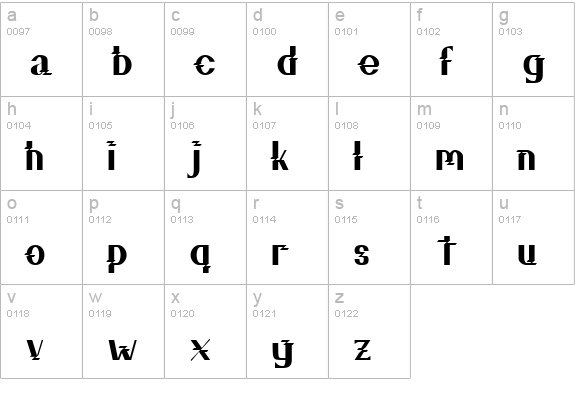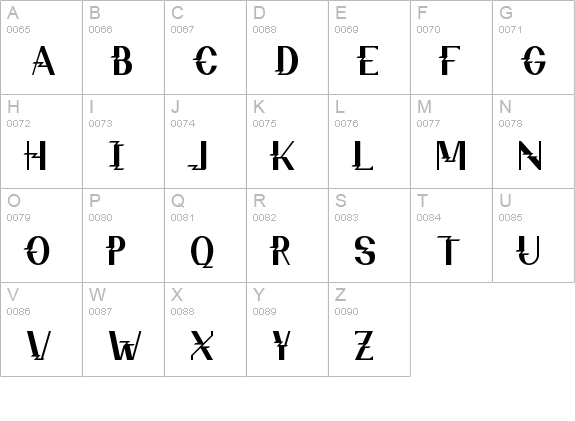
ZZZ Top Font Details
ZZZ Top font is a striking and modern typeface that exudes a sense of energy and creativity. With its bold and stylish design, this font is sure to make a statement in any project or design. ZZZ Top font is perfect for branding, advertising, posters, and more. Its sleek lines and sharp angles give it a unique and edgy look that will capture the attention of your audience. Best of all, ZZZ Top font is completely free to download at FontsMarket.com. This means you can add this eye-catching font to your collection without having to spend a dime. Don't miss out on the opportunity to elevate your designs with the dynamic ZZZ Top font today!